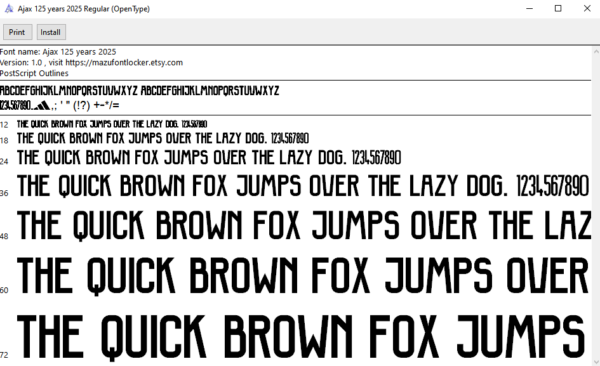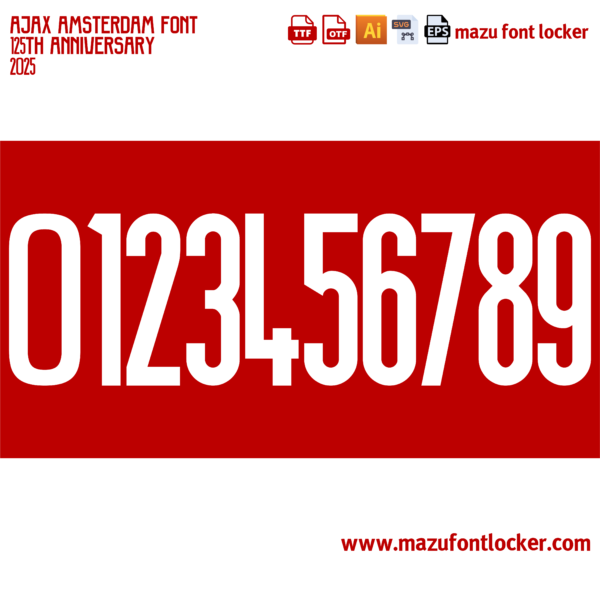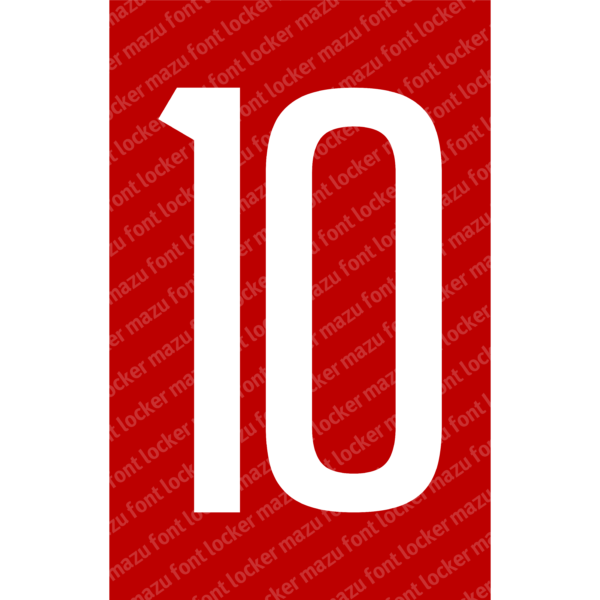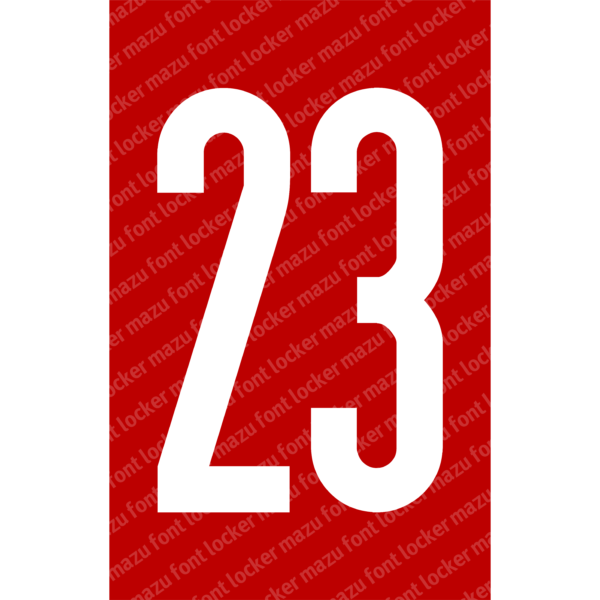
Ajax Amsterdam 125th Anniversary 2025 Font – Ultimate Godenzonen Masterpiece
Download the exclusive Ajax Amsterdam 125th Anniversary 2025 Font now and elevate your designs with authentic Dutch football heritage. This premium typeface perfectly captures the pride, passion, and rich history of one of Europe’s most iconic clubs.
The Ajax Amsterdam 125th Anniversary 2025 Font features bold, dynamic lettering with subtle details inspired by Ajax’s legendary red and white colors, making it ideal for posters, merchandise, social media graphics, and branding projects. Whether you’re a die-hard supporter or a professional designer, the Ajax Amsterdam 125th Anniversary 2025 Font delivers that powerful, professional look every time.
Crafted with precision and attention to detail, this font combines modern versatility with classic football elegance. Stand out from the crowd and celebrate 125 years of Ajax excellence with this must-have design asset.
Ajax Amsterdam 125th Anniversary 2025 Font Vector
The Ajax Amsterdam 125th Anniversary 2025 Font is a premium, high-precision football jersey font vector meticulously engineered to capture the fearless energy, explosive passion, and legendary identity of Ajax Amsterdam’s historic 125th Anniversary celebration.
Inspired by the mighty Godenzonen, this font unleashes a bold, majestic, and devastatingly powerful presence that radiates unbreakable Ajax pride, rich heritage, and unstoppable attacking brilliance. Every letter and number is recreated with razor-sharp precision to embody the vibrant red and white identity and the glorious legacy of total football.
• Authentic 125th Anniversary 2025 Ajax Amsterdam jersey lettering style
The authentic lettering style helps recreate the classic look of the Ajax Amsterdam 125th Anniversary 2025 kit with professional accuracy.
Unlike generic jersey fonts, this premium set is crafted with obsessive focus on authenticity and unmatched precision. Every detail is meticulously recreated from the original match lettering style specially designed for Ajax Amsterdam’s historic 125th Anniversary in 2025, helping designers and collectors create ultra-realistic football shirt designs that radiate pure Godenzonen pride and legendary greatness.